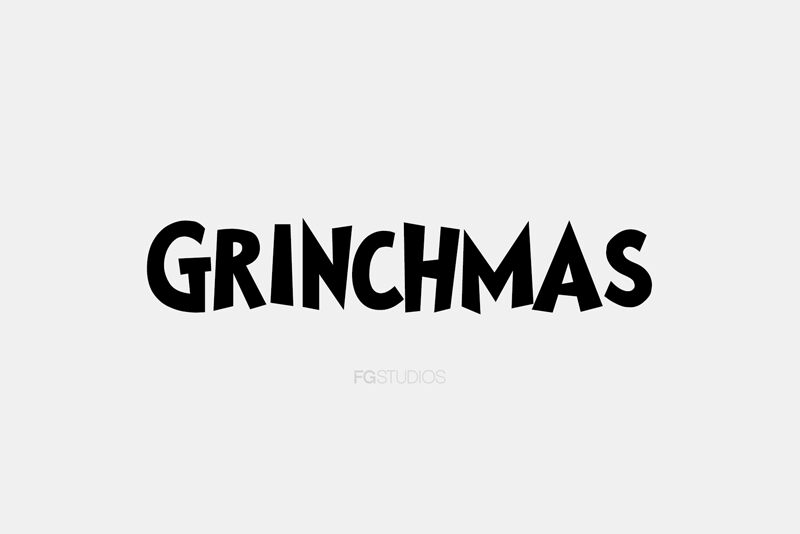
Grinchmas
Grinchmas, a captivating display font created by FG Studios, exudes a whimsical and playful charm. With its bold, cartoon-inspired strokes and distinctive character shapes, this font immediately grabs attention and conveys a sense of festive eccentricity.
The Grinchmas typeface possesses a delightful, almost mischievous quality, making it an ideal choice for a wide range of design applications, from holiday-themed branding and packaging to engaging children's content.
Its striking visual presence and versatile nature ensure Grinchmas can effortlessly elevate any project, infusing it with a touch of quirky personality and festive flair.